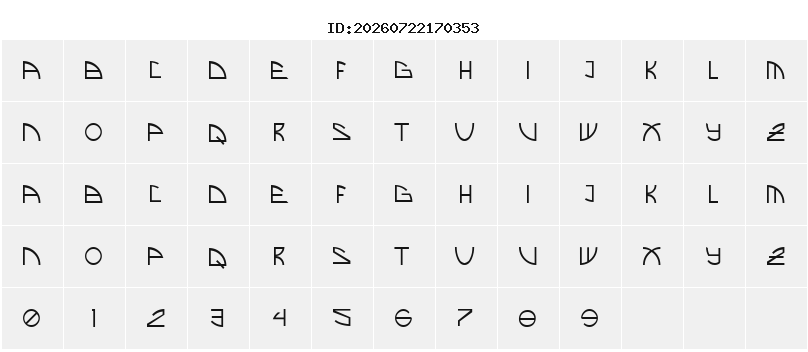
JI-Megilp Preview
• Font Name: JI-Megilp
• Full Font Name: JI-Megilp
• Designer: JupiterImages
About JI-Megilp.ttf
JI-Megilp.ttf is a modern, elegant sans-serif font designed for ultimate readability and visual harmony. Perfect for branding, headlines, web design, and print materials.